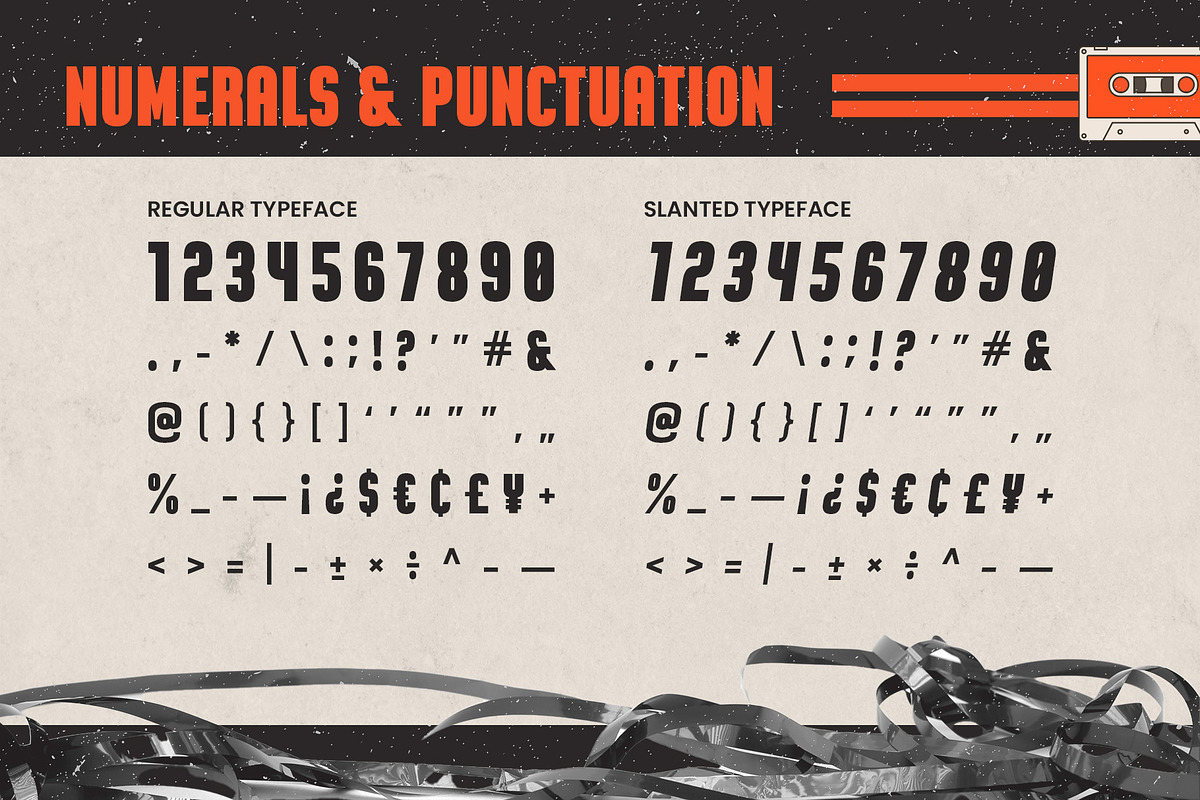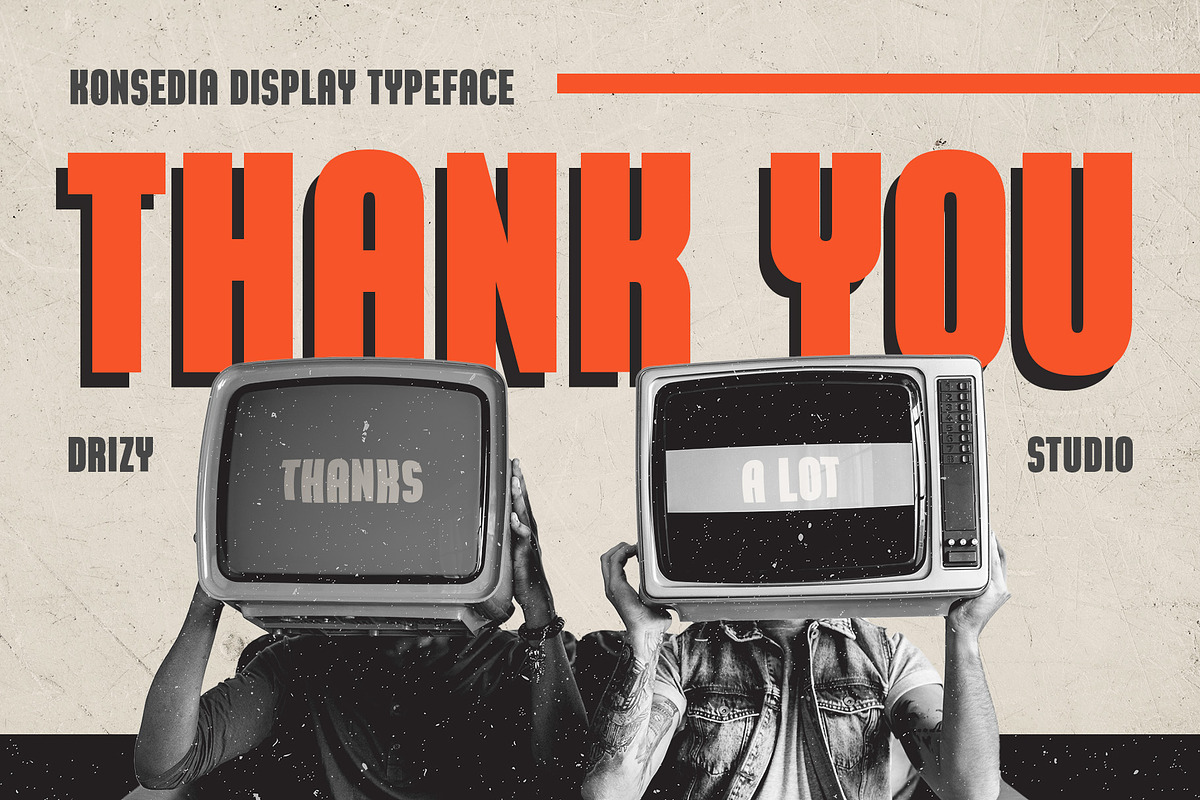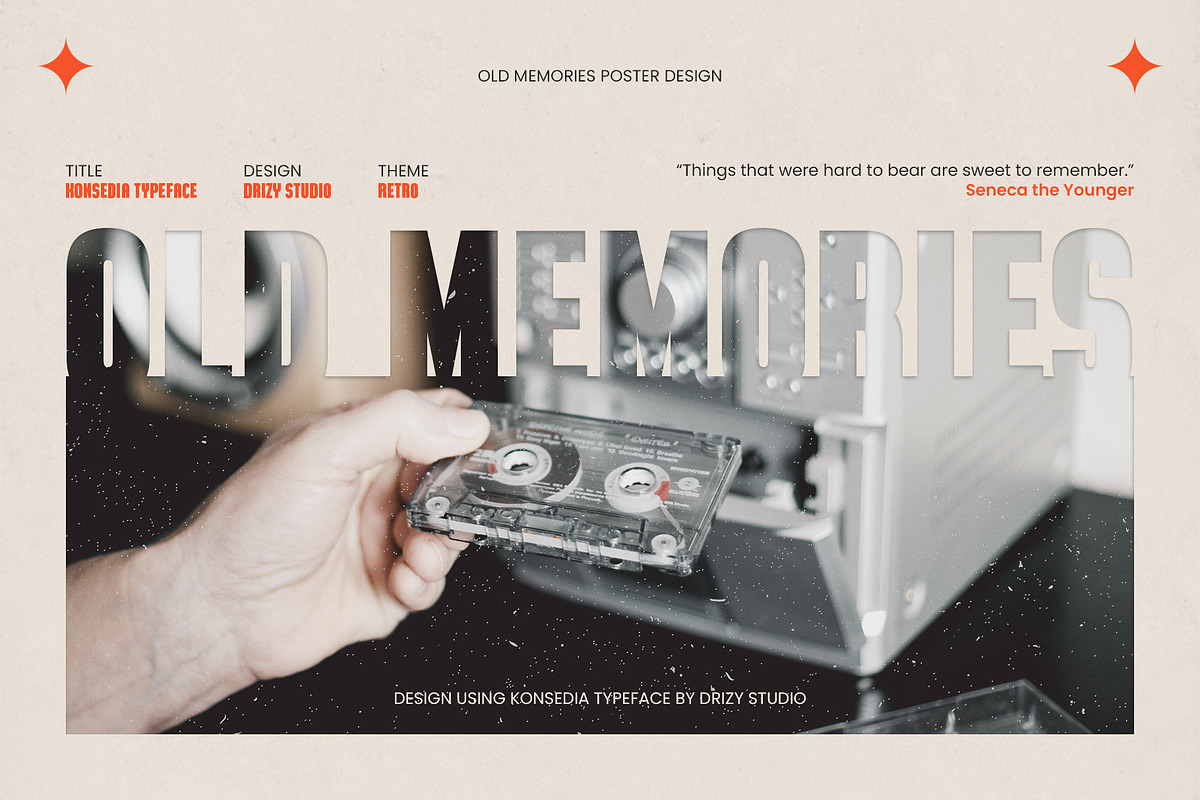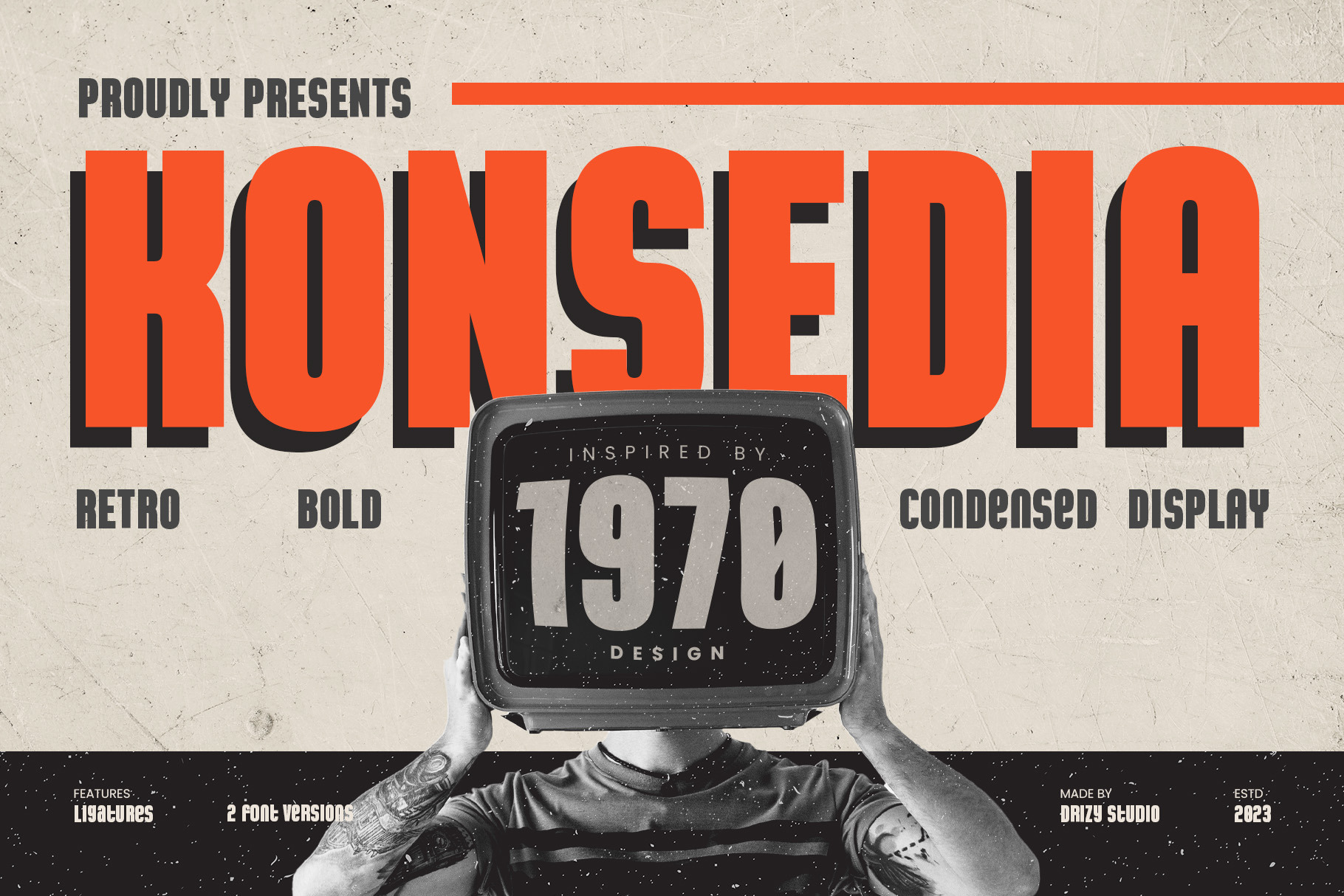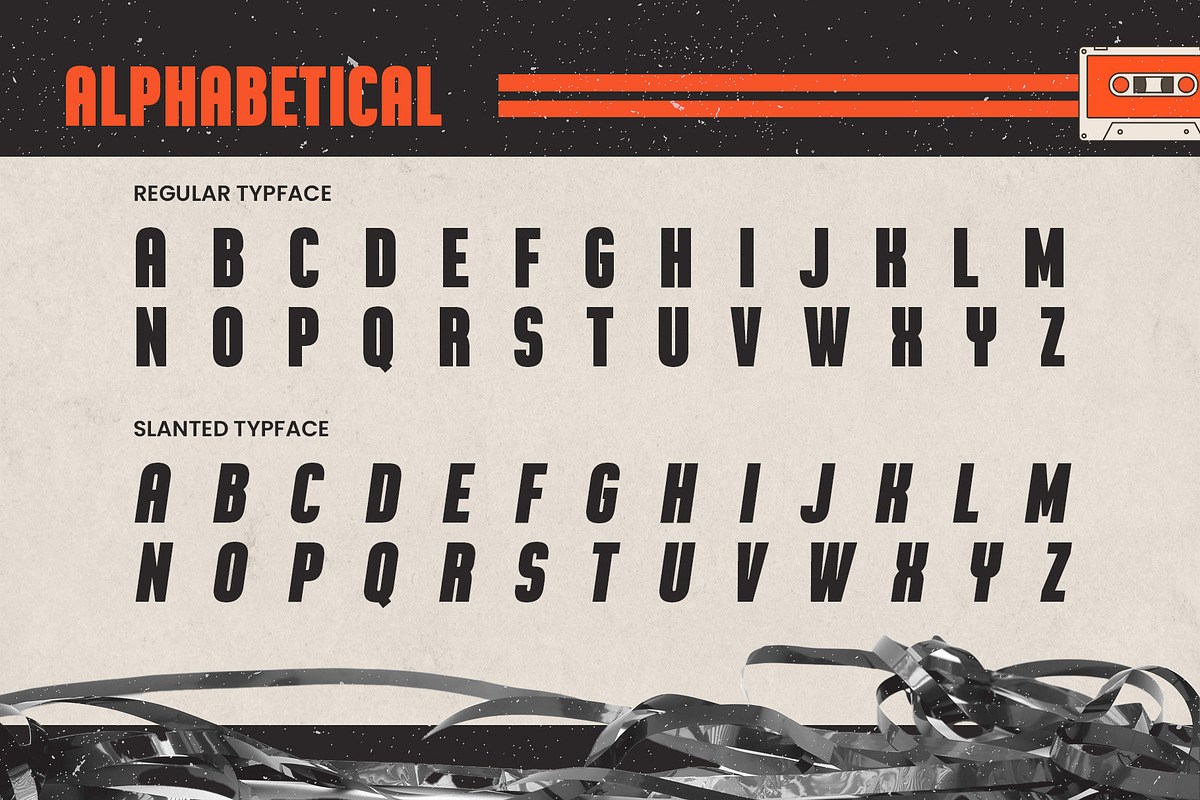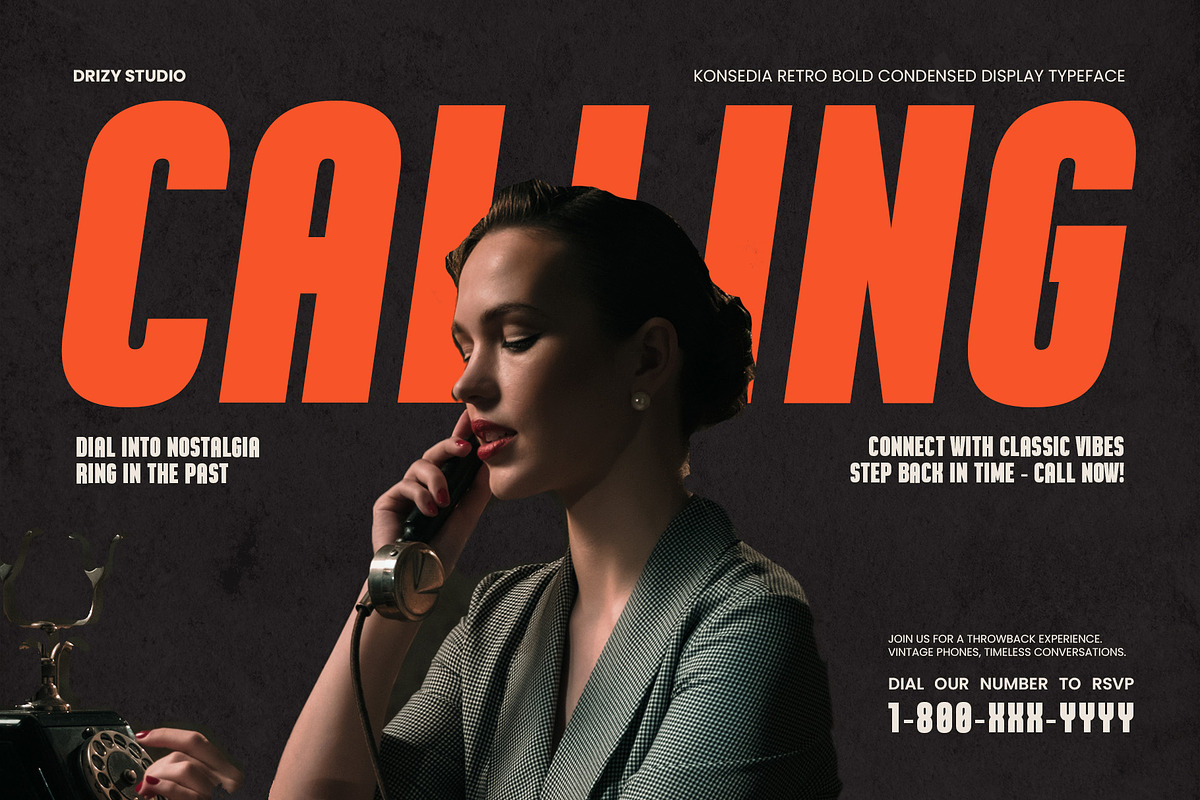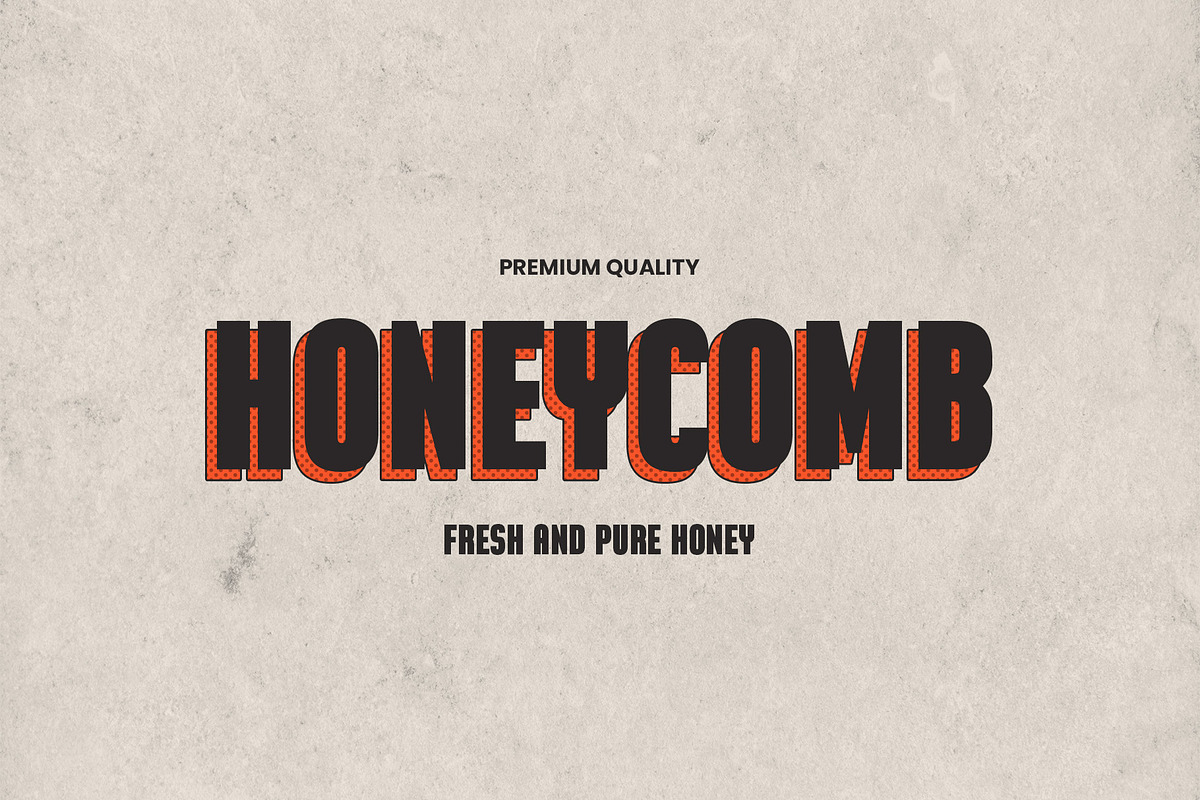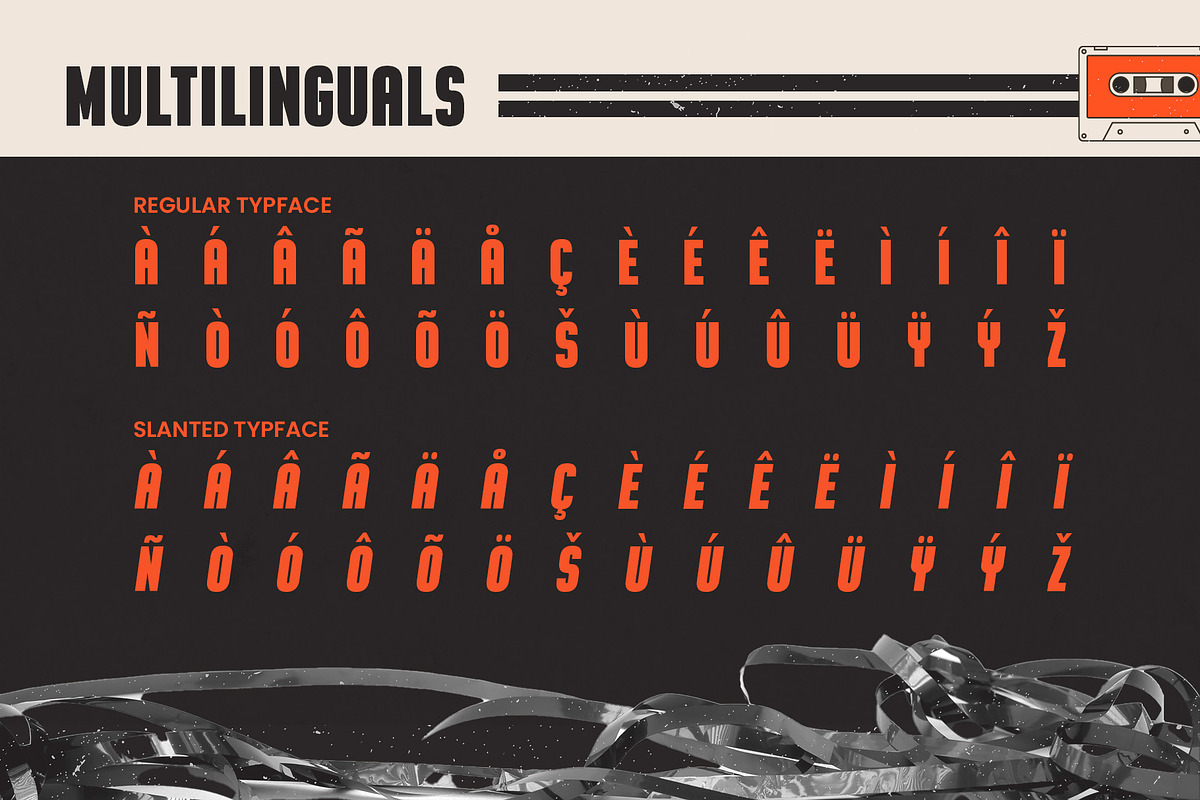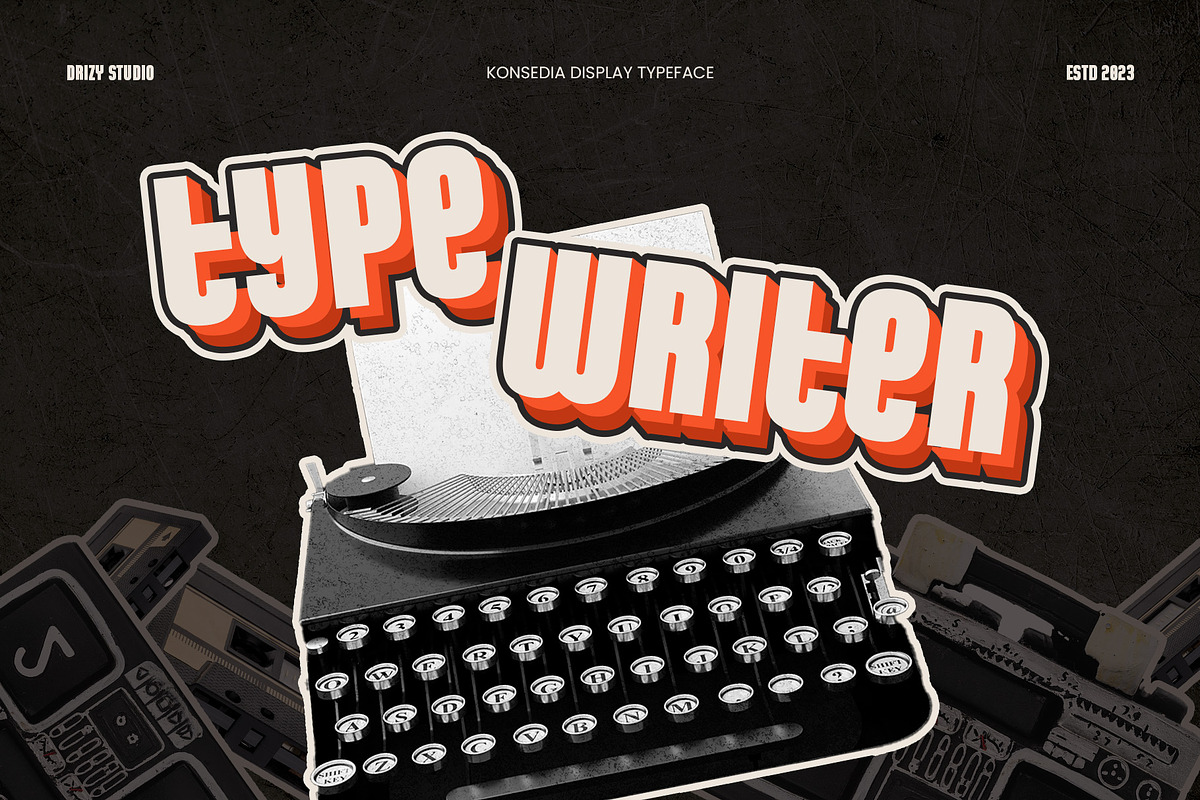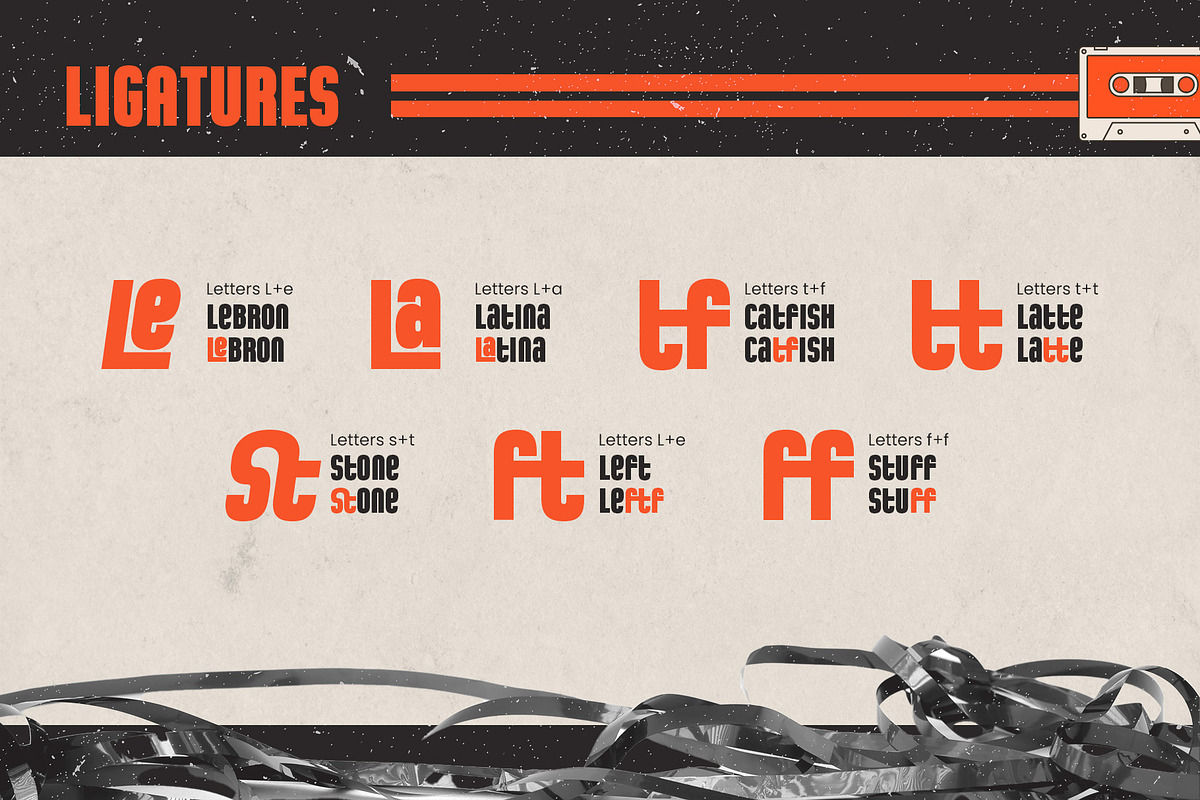
Konsedia - Retro Bold Font
Introducing Konsedia - Retro Bold Font, a typeface that effortlessly combines the essence of nostalgia with a bold, contemporary twist. This font is a celebration of timeless design, perfect for projects that demand a touch of vintage charm while maintaining a modern appeal.
Konsedia features: Character Set Variable: Regular & Slanted Punctuation & Numbers Multilingual Support Ligatures
Elevate and explore the design possibilities with this retro font!